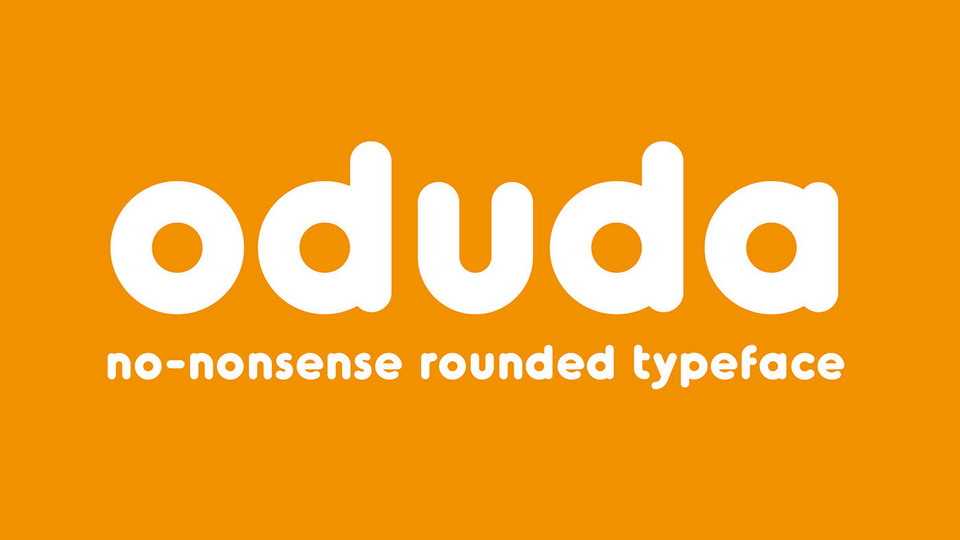
Download Oduda font, a geometric rounded sans serif typeface The use of perfect round shapes and quite a low ascender height makes it a very stable, yet playfull looking font.